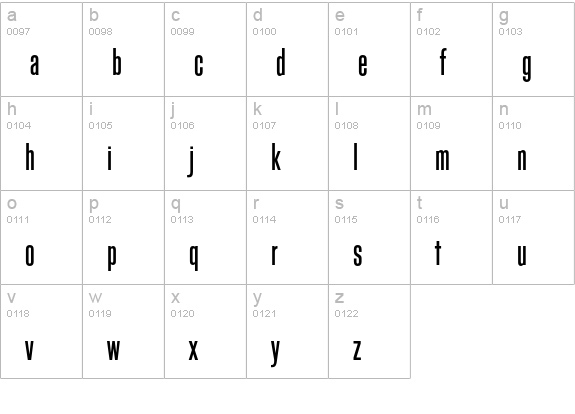
Block Gothic RR Medium Extra Condensed is a balanced, medium-weight, condensed-width variant in the Block typeface family \xE2\x80\x94 well suited to sub-headlines, navigation, and balanced editorial work.
Block Gothic RR Medium Extra Condensed is a sleek and modern font that exudes sophistication and elegance. With its tall and narrow letterforms, this typeface is perfect for creating a bold and eye-catching visual impact. The sharp edges and clean lines of Block Gothic RR Medium Extra Condensed make it ideal for headlines, titles, and any design project that requires a contemporary and edgy look. The best part about Block Gothic RR Medium Extra Condensed? It's completely free! You can easily download this font from FontsMarket.com and start using it in your projects right away. Whether you're designing a poster, a logo, or a website, Block Gothic RR Medium Extra Condensed will add a touch of modern flair to your work. Don't miss out on this fantastic opportunity to enhance your designs with this stylish and versatile font. Download it now and let your creativity soar!